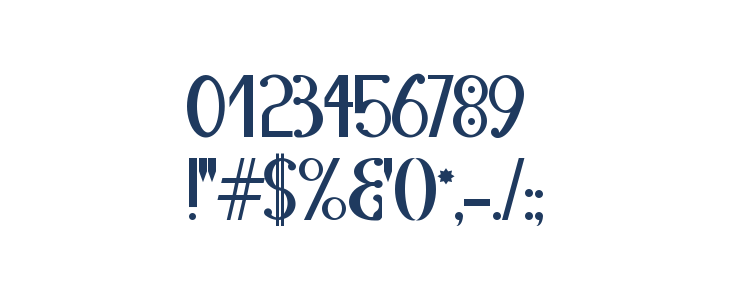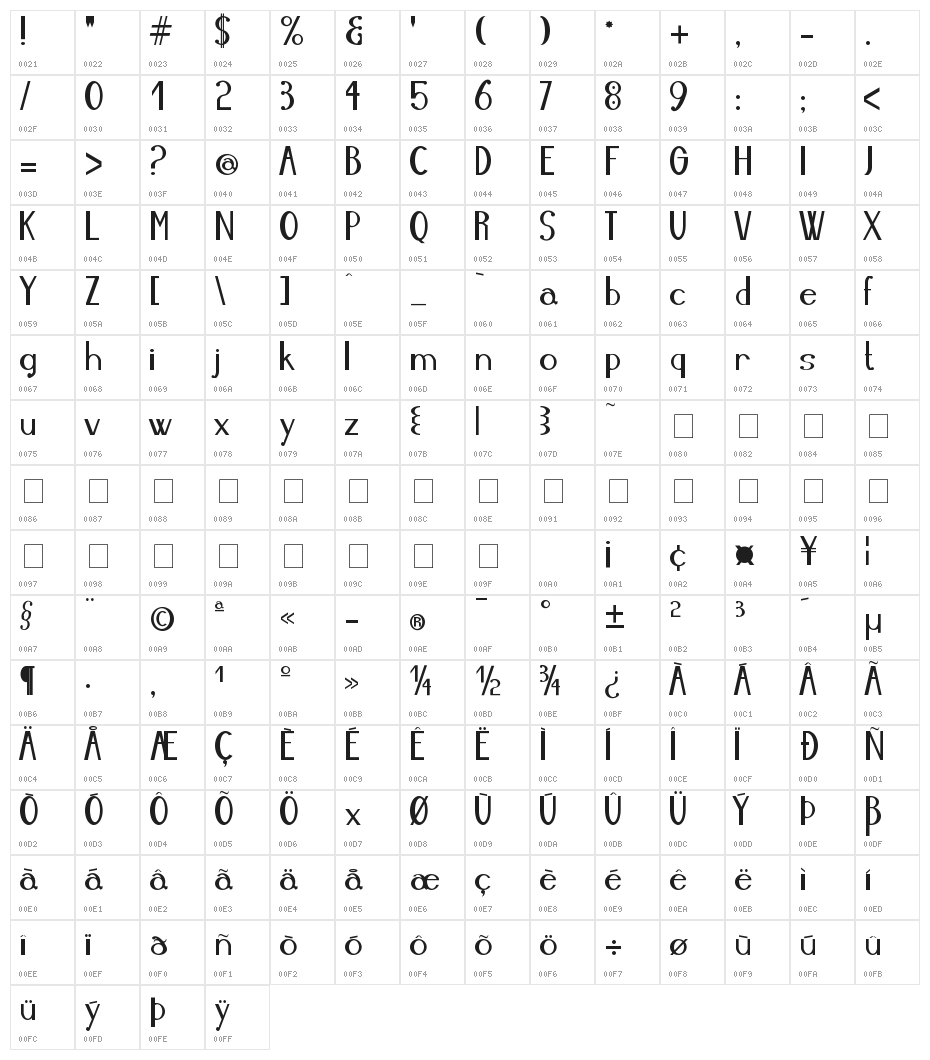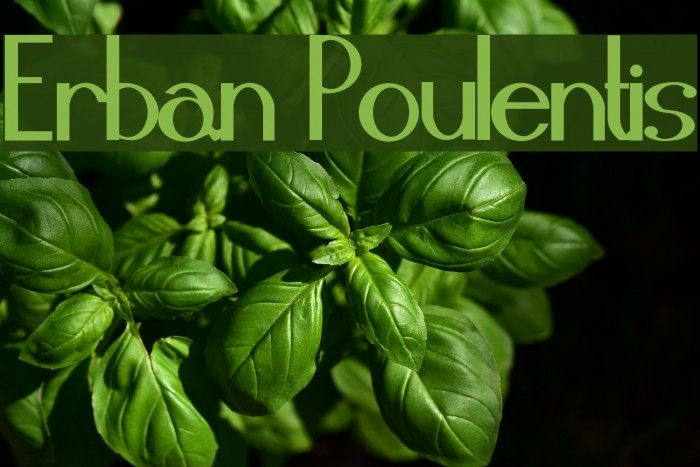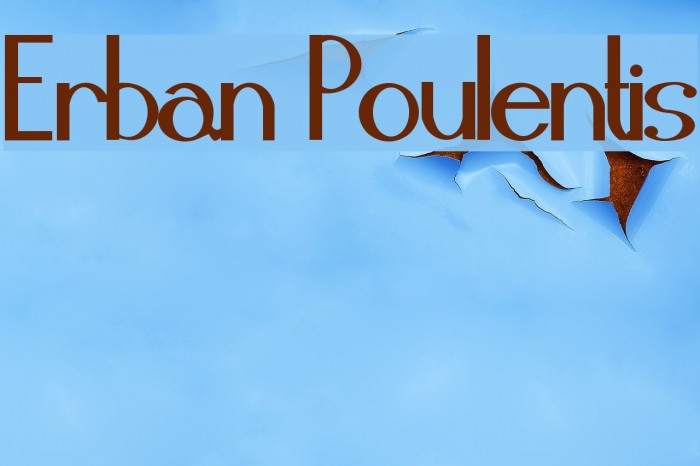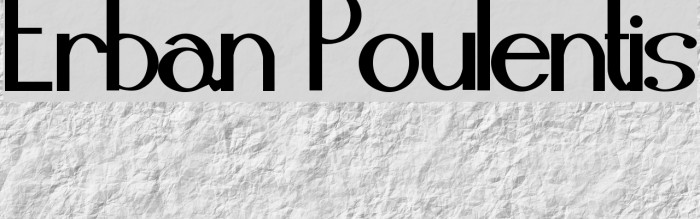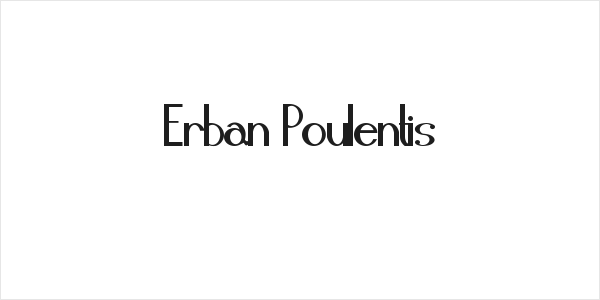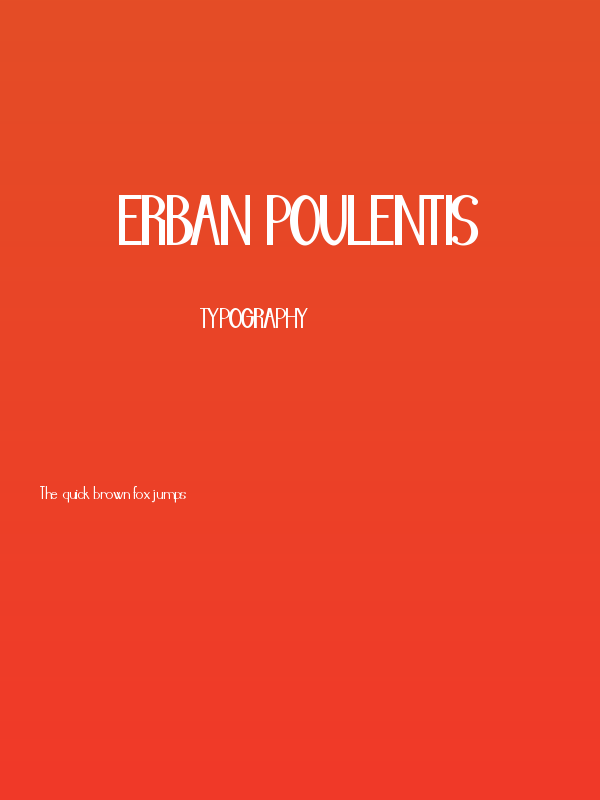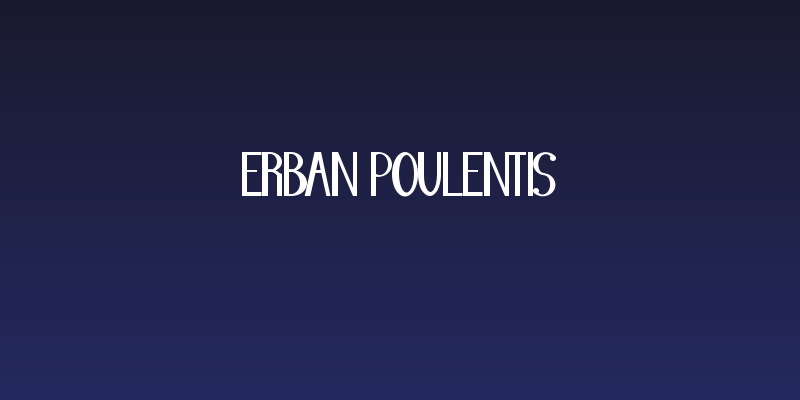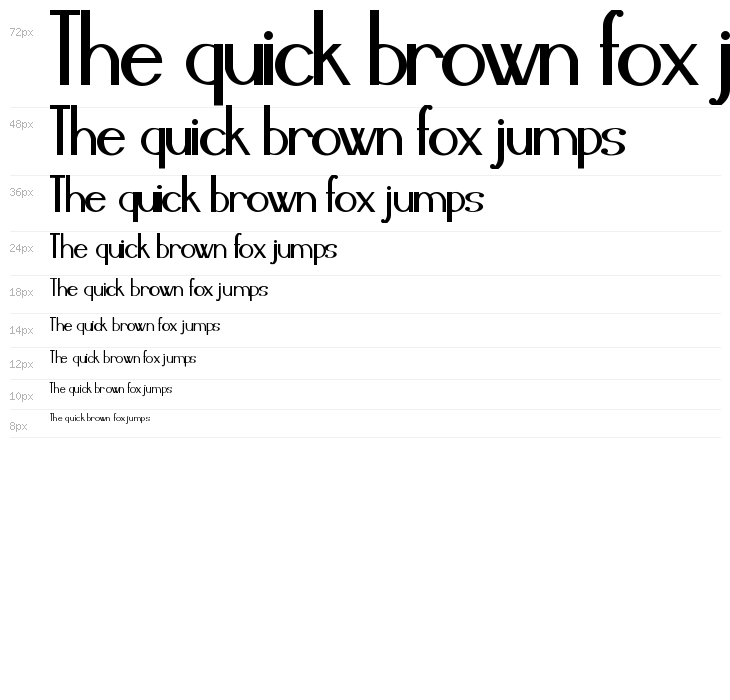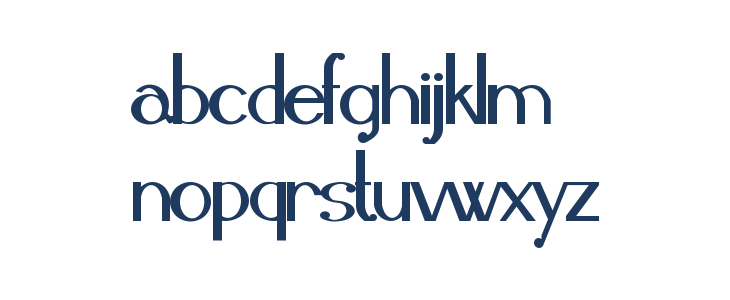
Erban Poulentis Font
Erban Poulentis Description
This font features a unique blend of geometric and organic shapes, creating a striking visual impact. The uppercase letters are tall and narrow, with a consistent stroke width that gives them a modern and sleek appearance. The lowercase letters maintain a similar style, with rounded edges that add a touch of softness. The numerals are bold and easily readable, while the special characters are designed to complement the overall aesthetic. This font's distinct style makes it suitable for a variety of creative projects.